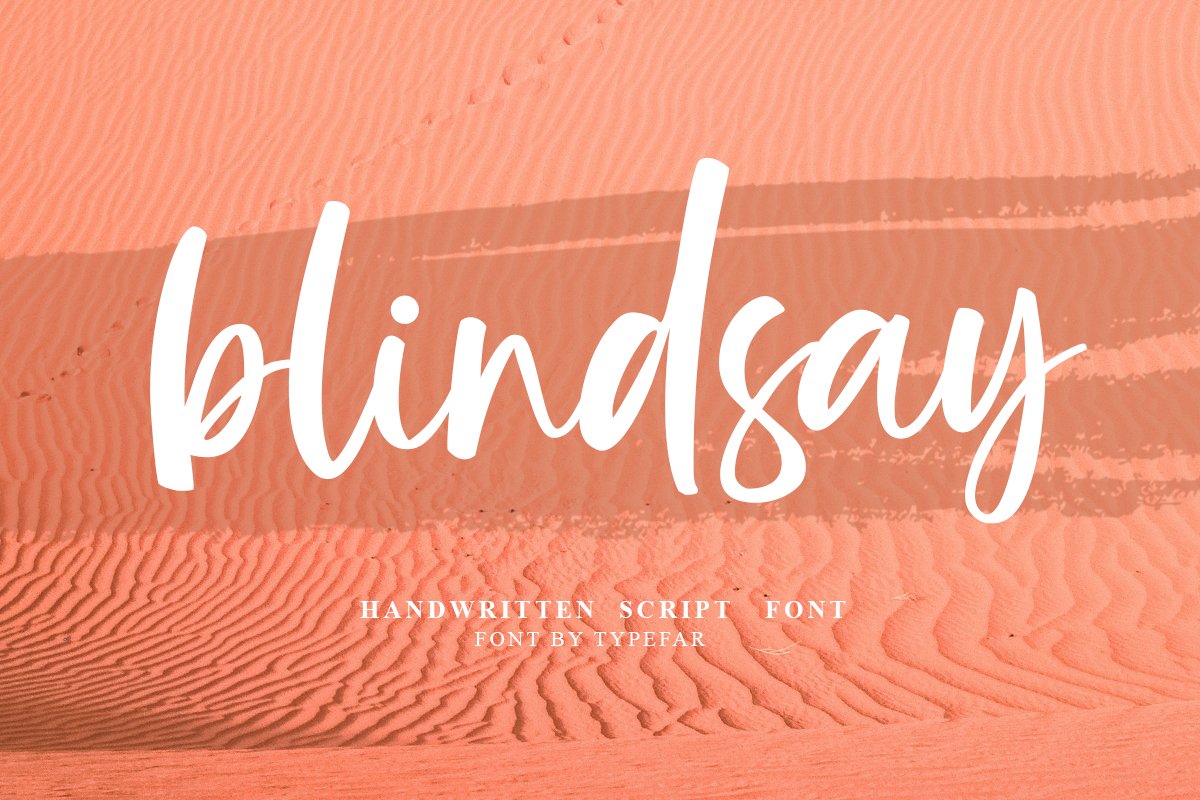
Blindsay - Handwritten Script Font
Blindsay
New product from us. Blindsay Handwritting Script font. font script all lowercase, cute and suitable for use in your various designs, such as designs for cards, shirts, invitations, mugs, shop names, quotes.